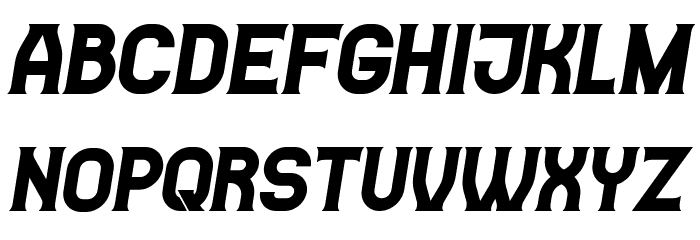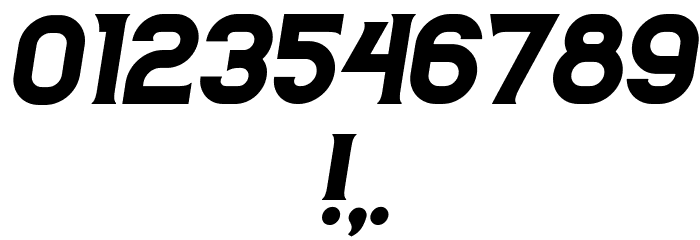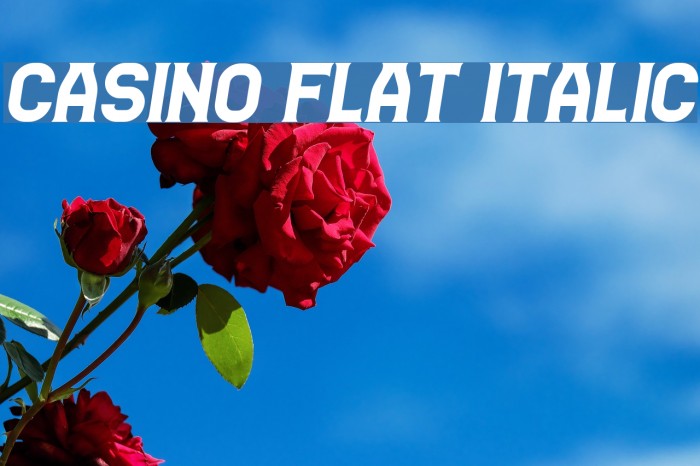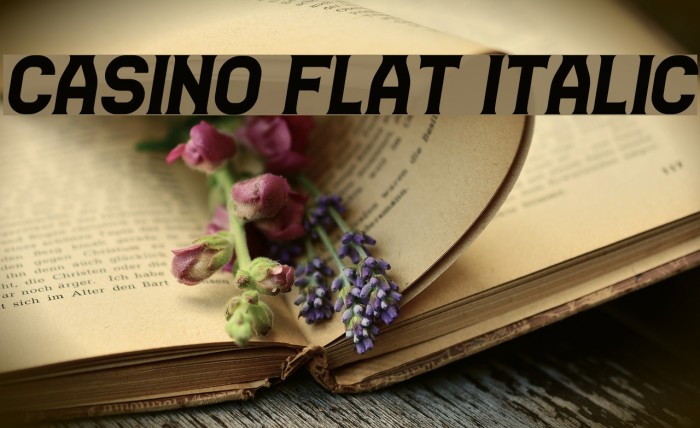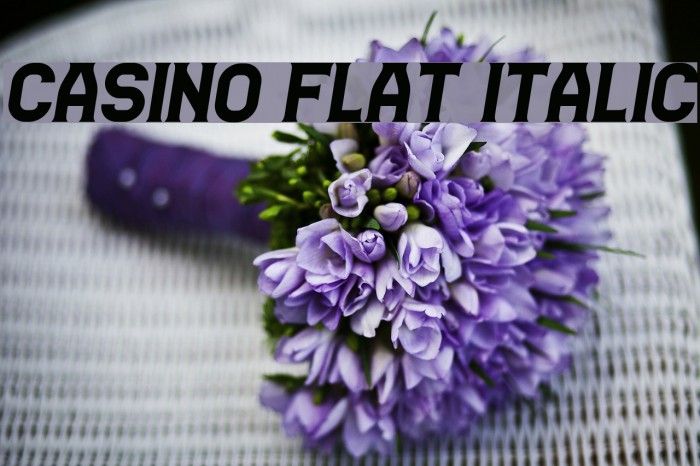
Casino Flat Italic Font
This font exhibits a bold and dynamic style with a strong italic slant, giving it a sense of motion and energy. The characters are well-defined with a consistent stroke weight, creating a uniform appearance across the alphabet. The uppercase and lowercase letters maintain a cohesive design, with the lowercase letters mirroring the uppercase in style but with a slightly more compact form. The numerals are clear and bold, ensuring readability, while the special characters are designed to match the overall aesthetic. The font's boldness and italic nature make it suitable for attention-grabbing headlines and titles.
A bold, italic font with a dynamic and energetic style.
- Proposed Projects: Ideal for use in advertising, branding, and any project requiring a bold, impactful typeface.